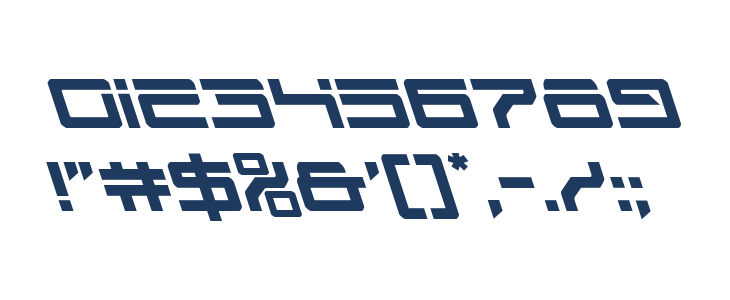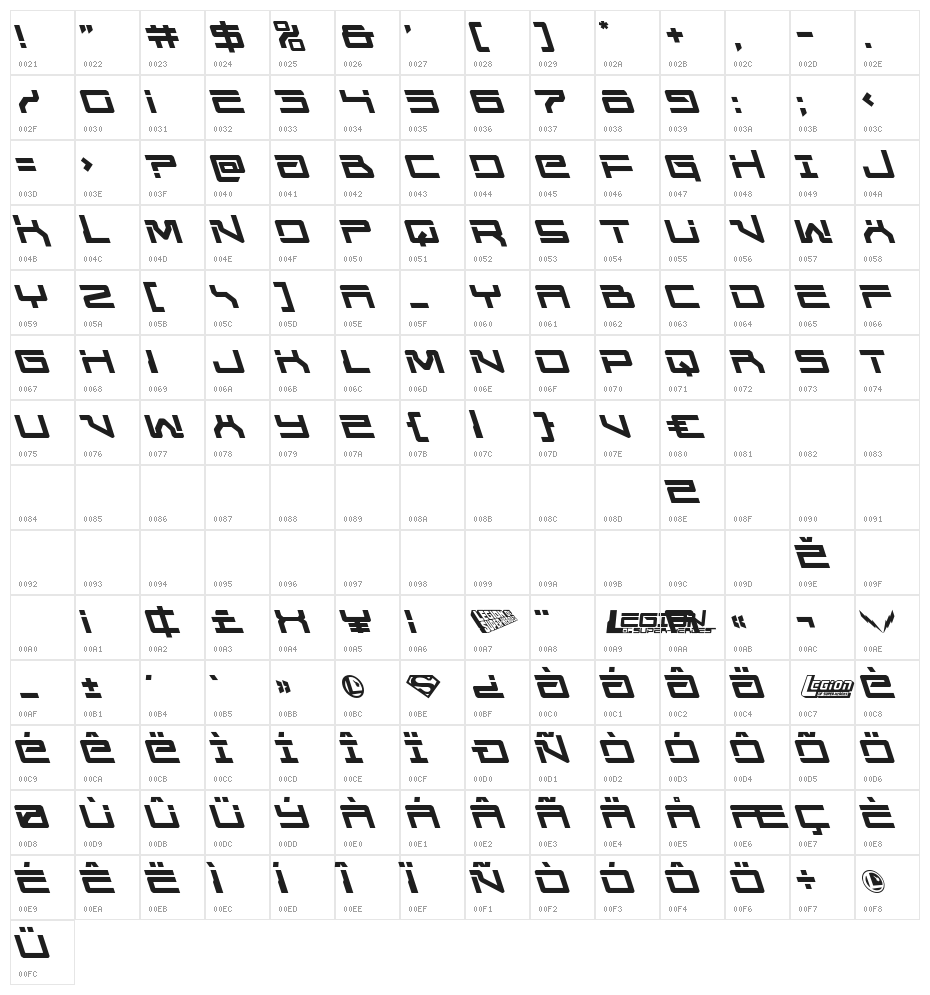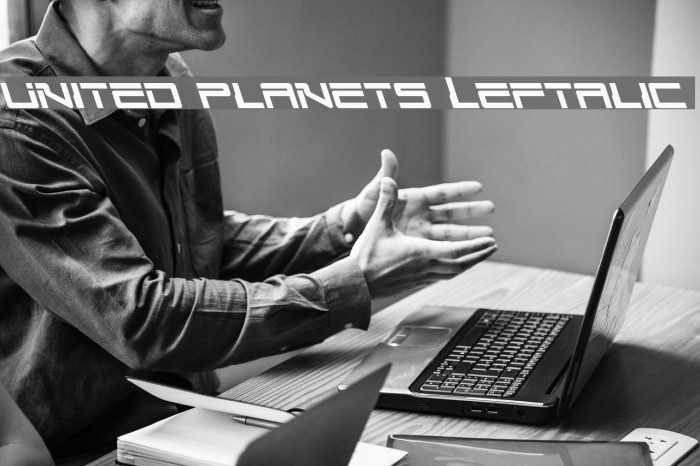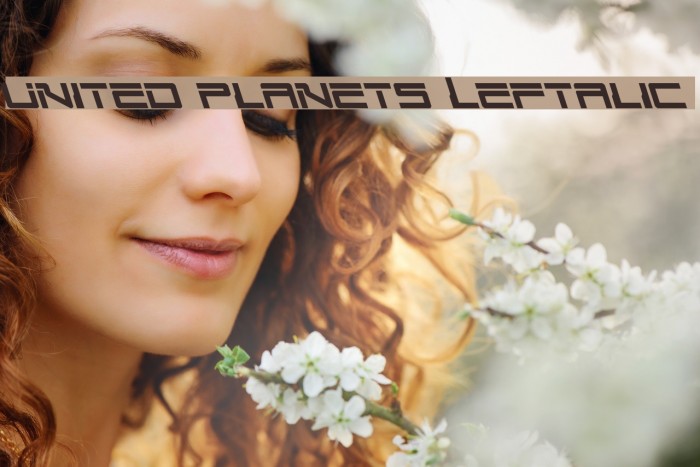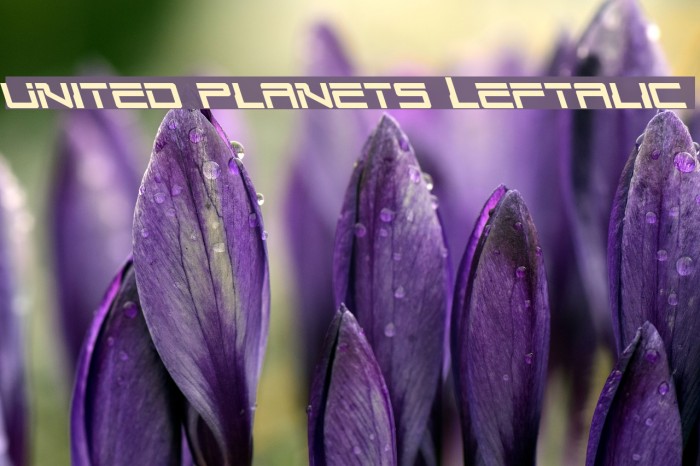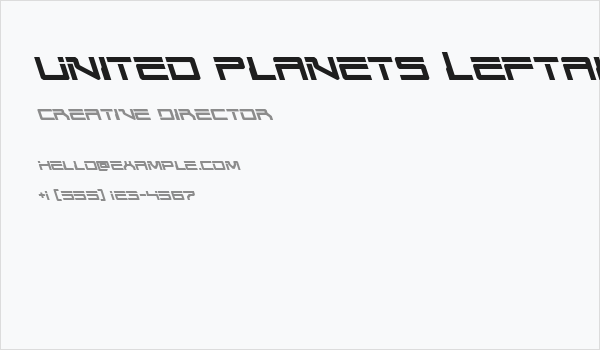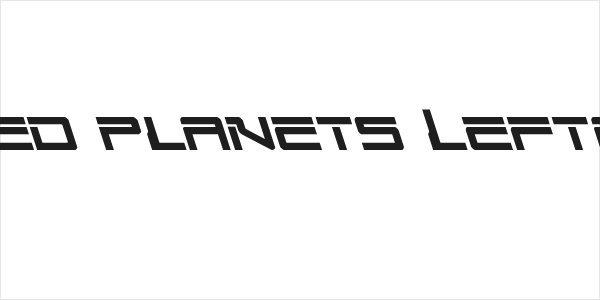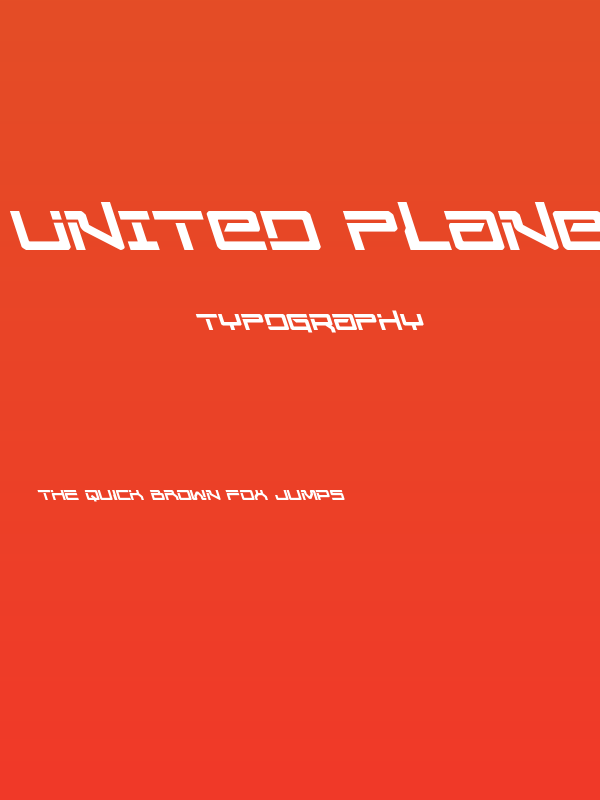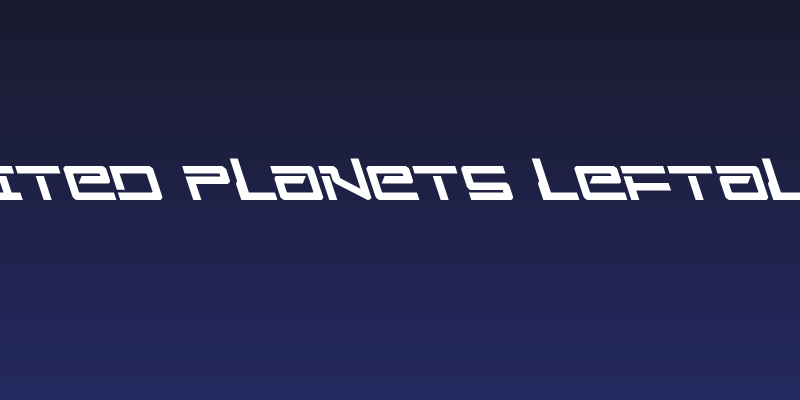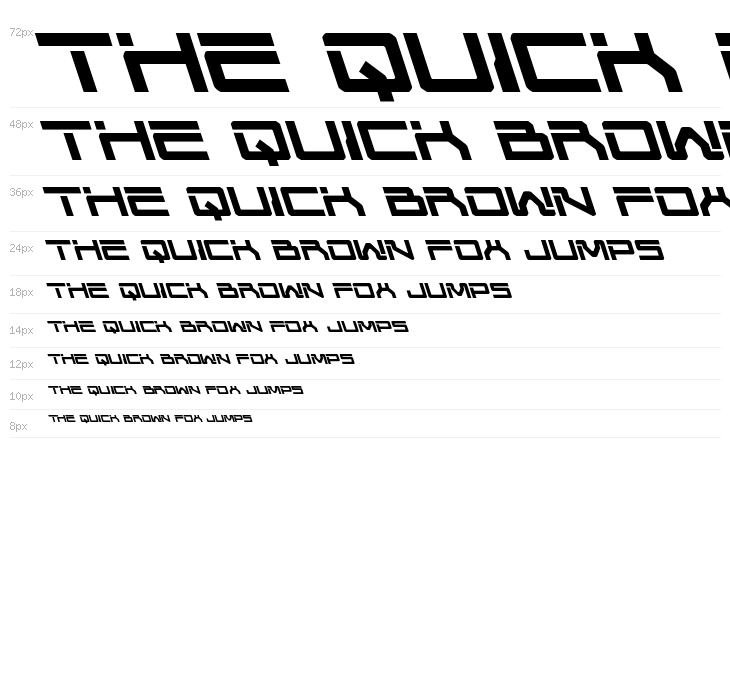
United Planets Leftalic Font
United Planets Leftalic Description
This font features a futuristic and geometric design with a distinct angular style. The characters are constructed with sharp edges and a bold presence, creating a sense of movement and modernity. The uppercase and lowercase letters maintain a consistent design, with a slight slant that adds a dynamic feel. The numerals and special characters follow the same aesthetic, ensuring uniformity across all glyphs. Its unique appearance makes it suitable for projects that require a modern and tech-inspired look.
| Proposed Projects | Ideal for sci-fi themed designs, tech branding, video game titles, and futuristic posters. |